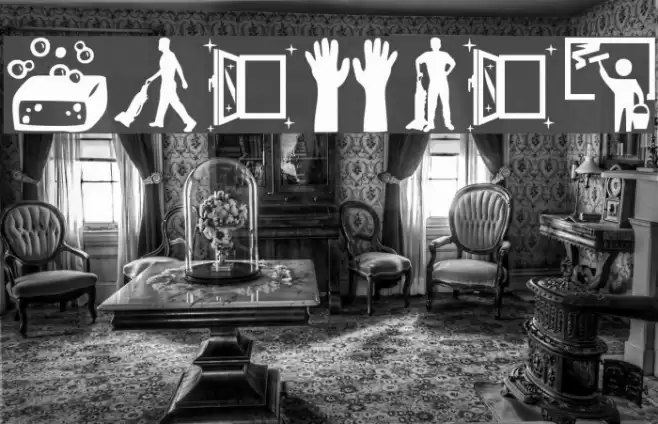
Cleaner Font
A decorative dingbat font composed of various cleaning-related icons, including tools, people, and cleaning products, rendered in a bold, high-contrast, pictographic style with clear silhouettes and minimal detail.
A pictographic icon set themed around cleaning and housekeeping from Uncategorized fonts.
- Proposed Projects: Infographics, signage, instructional materials, cleaning service branding, educational worksheets.
- Overall Style: Decorative, Modern, Pictographic
- Use Case: Icons, Logos, Visual aids, Posters